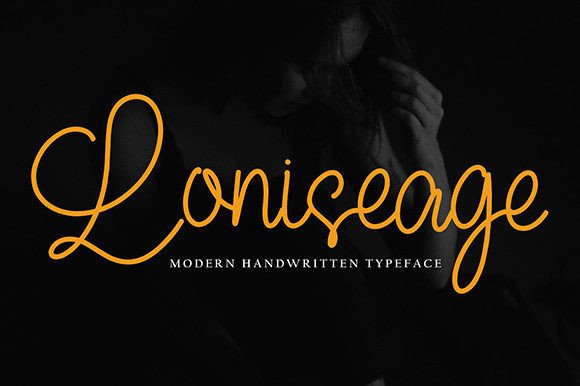
Behold the Loniseage Font — A Digital Masterpiece That Unleashes Your Creative Genius
In the realm of digital artistry, where beauty meets functionality, there lies a font that captivates the senses and ignites the imagination — the Loniseage Font. This modern handwritten typeface, meticulously crafted by the collaborative genius of Pineungtype and Missinklab, is an ode to elegance and grace, seamlessly blending the charm of the written word with the precision of digital artistry.
Immerse yourself in a universe of creative possibilities as Loniseage Font unveils its captivating essence. Designed to evoke emotions and elevate your designs, this script font dances across your screen, leaving a trail of exquisite typography that commands attention and captivates hearts. Let the fluid strokes and delicate curves of Loniseage guide your words into timeless masterpieces, transforming mundane text into works of art.
With Loniseage, every letter becomes a brushstroke, every word a painting, and every sentence a symphony of visual delight. Unleash your inner artist and watch as your designs blossom into extraordinary creations that speak volumes without uttering a single word. From the delicate strokes of a love letter to the bold presence of a marketing campaign, Loniseage effortlessly adapts to your creative vision, becoming an extension of your imagination.
Explore the boundless versatility of Loniseage Font, as it effortlessly glides across a myriad of digital canvases. Whether you're crafting enchanting quotes, designing eye-catching posters, or creating logos that leave an indelible mark, Loniseage seamlessly blends with your artistic vision, enhancing the impact of your message with its timeless elegance.
Loniseage Font is more than just a collection of characters; it's an invitation to embark on a creative journey, where your imagination takes center stage. Let your designs radiate with the allure of Loniseage, captivating your audience with its unique charm and leaving them spellbound by the beauty of your creations.